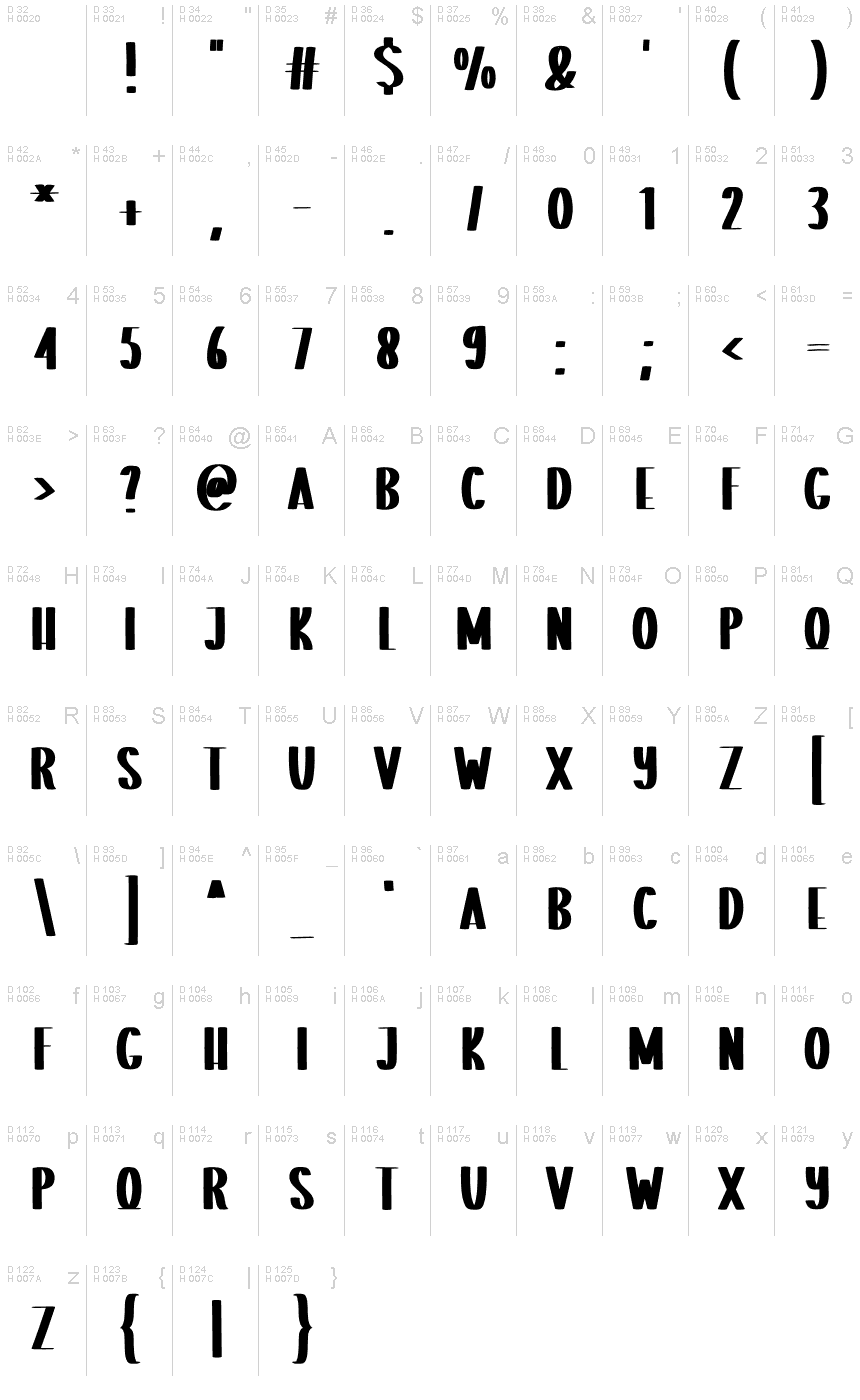
Luxury House
Luxury House by Scratchones stands as a paragon of elegance in the realm of display fonts. Its semi-bold, extra-condensed profile exudes exclusivity and sophistication, making it an impeccable choice for high-end branding, fashion editorials, and premium packaging. With its sleek handwritten aesthetic, this sans serif marvel transforms any creative project into a statement piece.
The boldness of Luxury House ensures standout visibility, while its refined curves offer a contemporary flair that captivates audiences. Incorporate Luxury House into your design arsenal and witness the transformation from mundane to magnificent with every stroke.